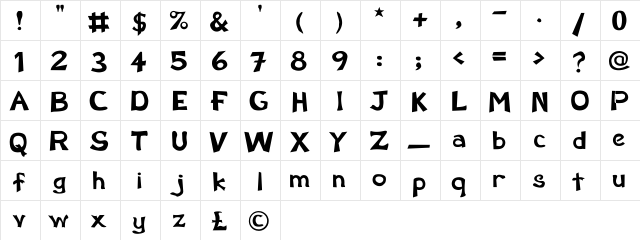
Allandale Regular
Design Context for Allandale Typeface
Allandale is a composed and adaptable typeface that performs quietly and consistently across a wide range of design contexts.